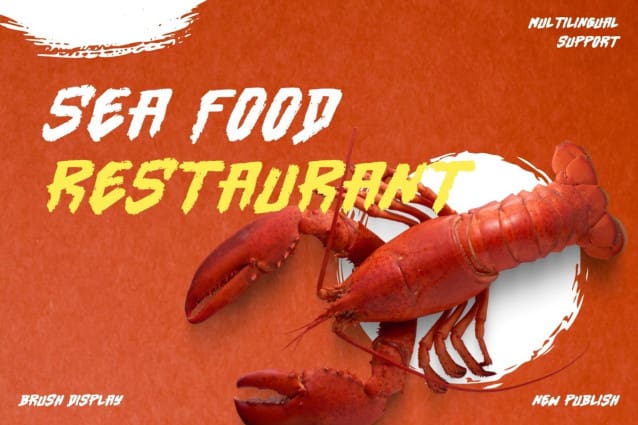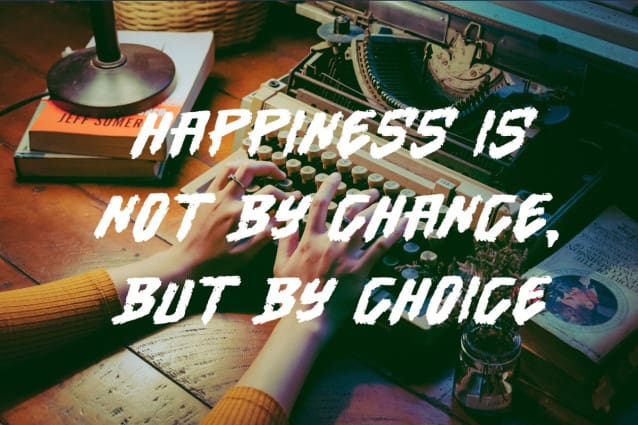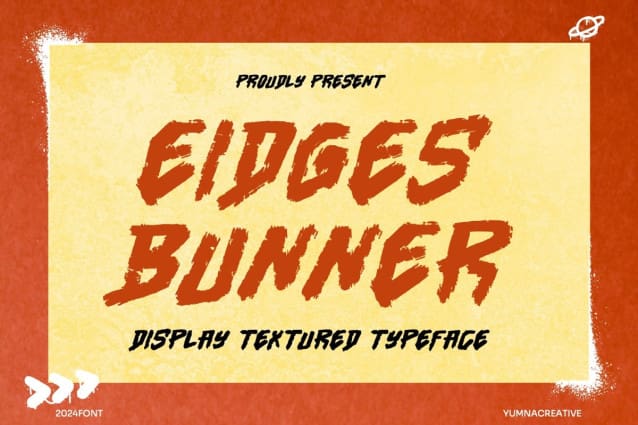
Eidges Bunner Font
Eidges Bunner Font is a modern yet textured display font. EidgesBunner is ideal for merchandising, branding, and any other project type that needs a touch of grunge and rock ‘n’ roll.